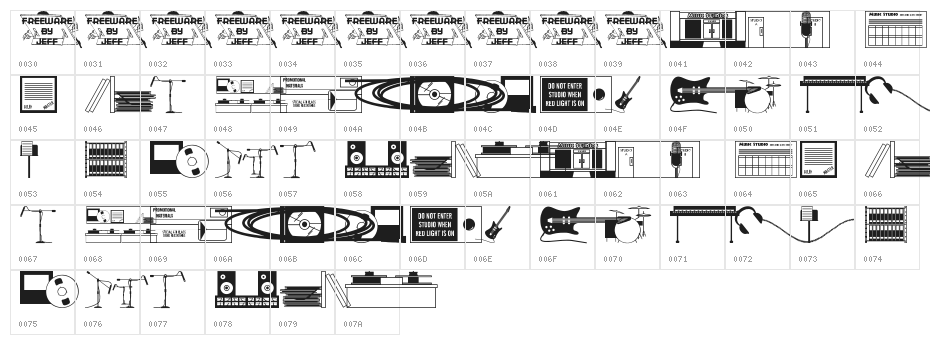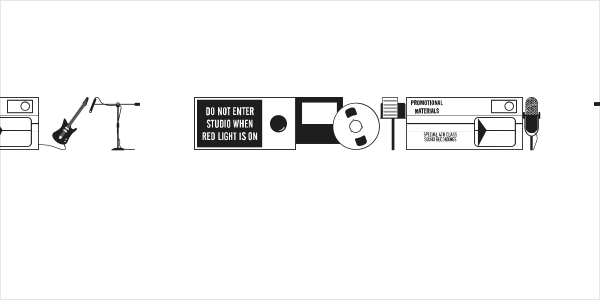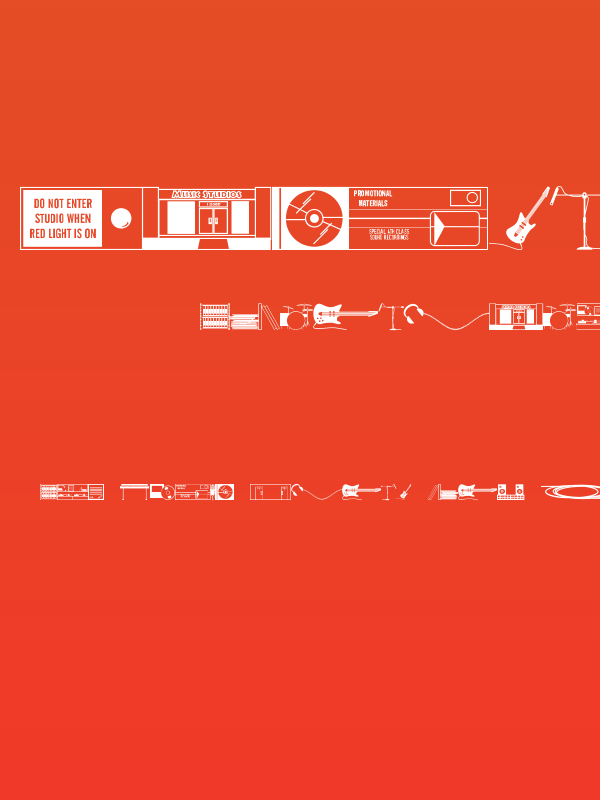
Making Music JL Font
Making Music JL Description
This font is a creative and illustrative design that incorporates musical elements into each character. The letters are formed using various musical instruments and equipment, such as guitars, drums, microphones, and speakers. This unique approach gives the font a playful and artistic feel, making it stand out as a decorative typeface. The intricate details in each character showcase a high level of creativity, making it ideal for projects that require a musical or artistic theme. The font's design is consistent across both uppercase and lowercase letters, as well as numbers and special characters, maintaining a cohesive look throughout.
| Overall Style | Artistic and playful |
| Proposed Projects | Ideal for music-themed posters, album covers, event flyers, and creative branding projects. |